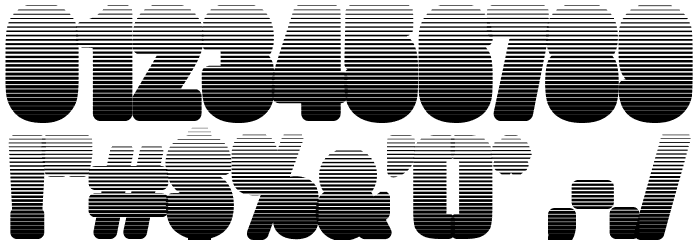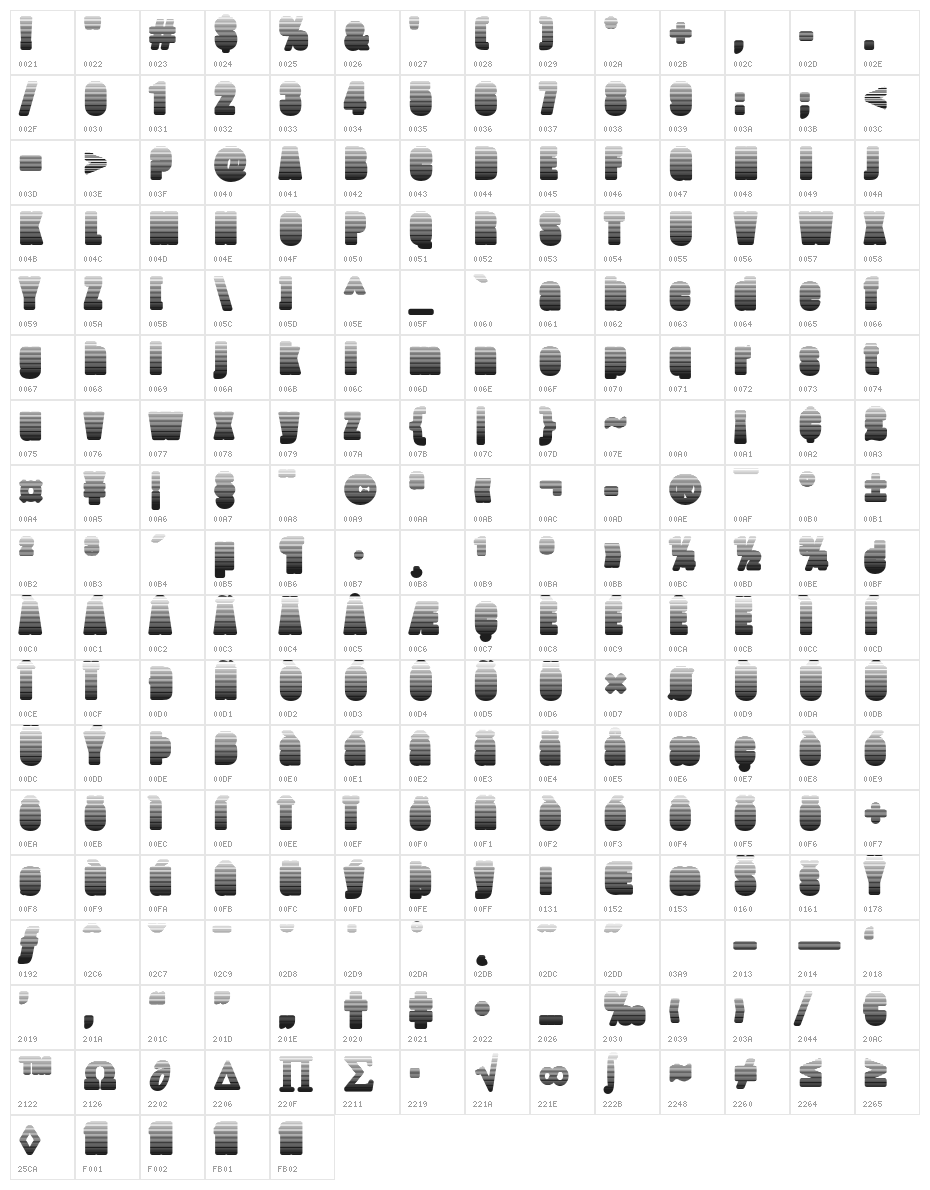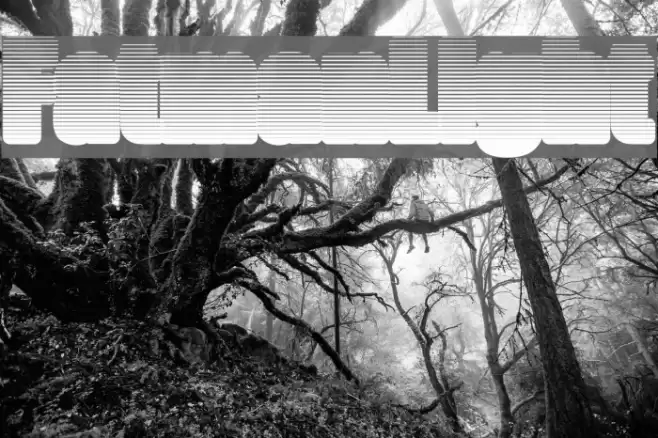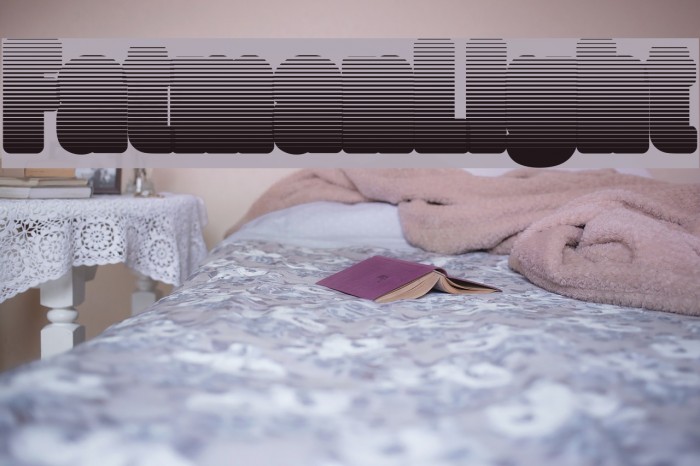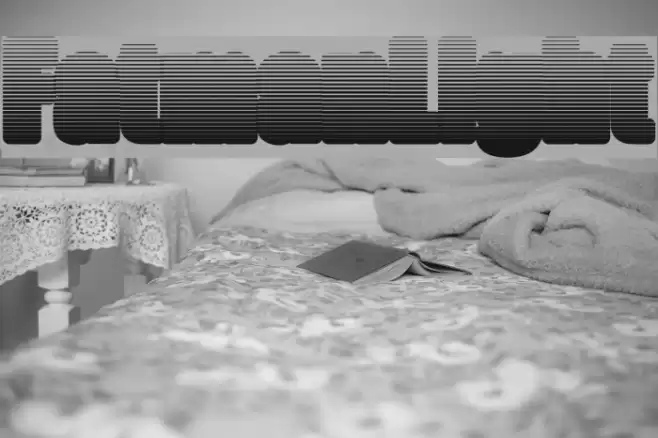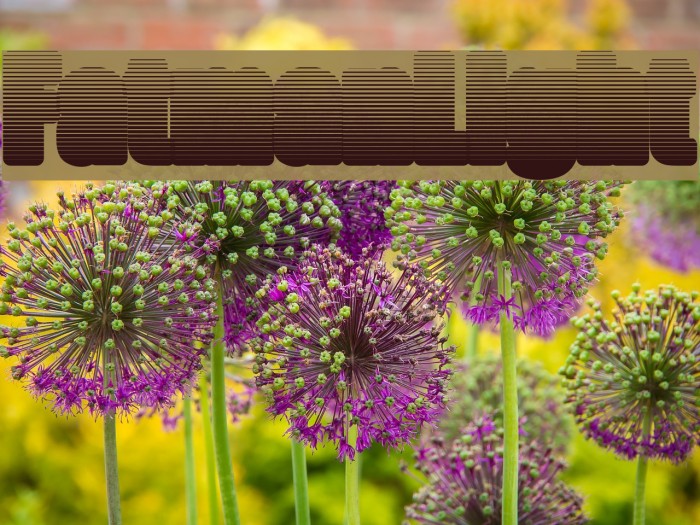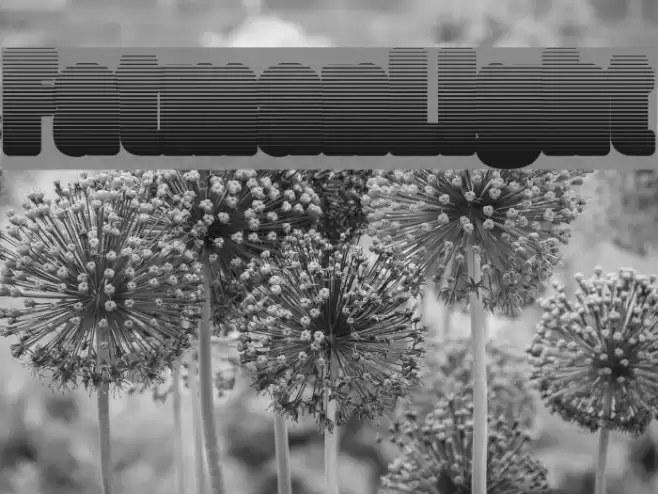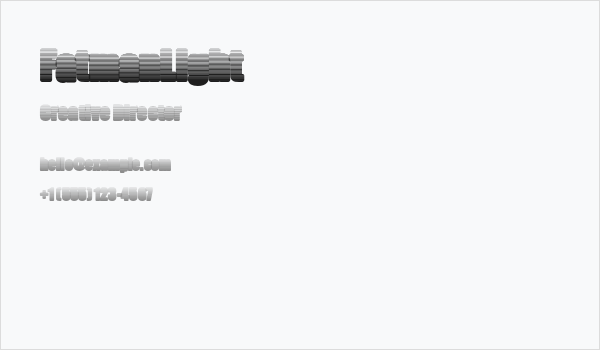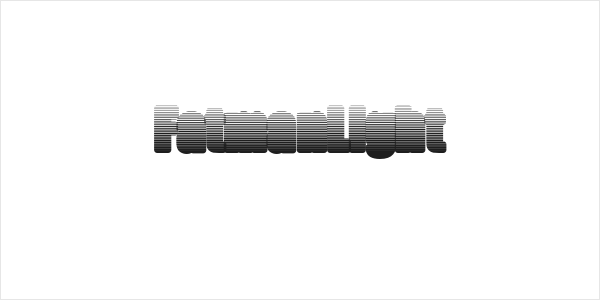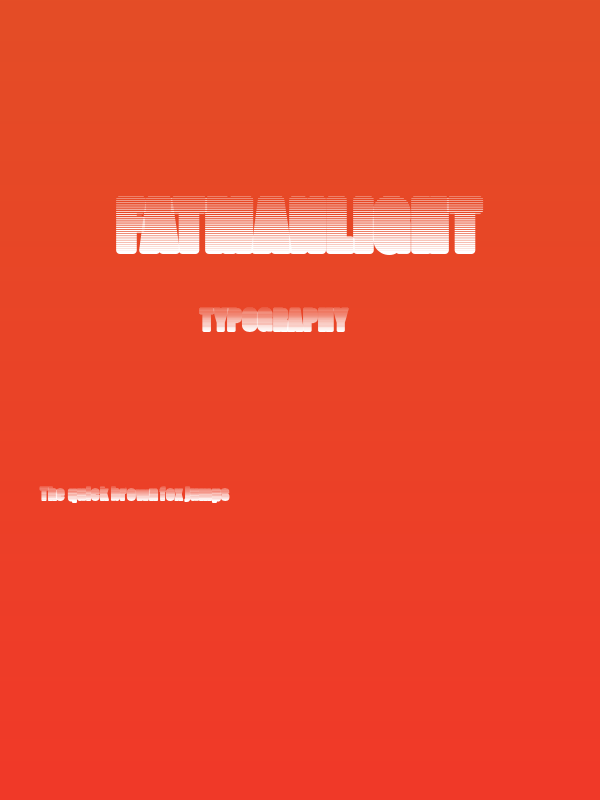
FatmanLight Font
FatmanLight Description
This font features a bold and striking design with a layered, striped pattern that creates a sense of depth and dimension. The characters are wide and have a substantial presence, making them ideal for attention-grabbing headlines and titles. The uppercase and lowercase letters maintain a consistent style, with rounded edges and a playful, modern aesthetic. The numbers and special characters are equally bold, ensuring uniformity across all text elements. The unique layering effect adds a dynamic quality, making it suitable for creative and artistic projects.
| Proposed Projects | Ideal for posters, advertisements, branding, and any project requiring a bold, eye-catching typeface. |